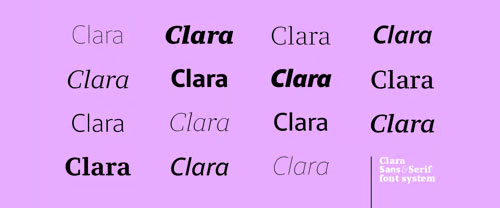
- Clara is a set of alphabets of interconnected serif and sans serif fonts. The connection is not only in the intensity of the strokes, i.e. in the identical brightness of the typesetting, but also in the drawing principles of both alphabets. The typeface aims to offer a sense of calmness for a reader even in smaller scales of the typesetting. In large scales it builds on the purity of the image without additional decorations. The Clara system includes maximum equipment of a Latin font from Thin to Black in all versions of marking fonts, italics, capital letters and four kinds of numbers. The typeface allows typesetting of the vast majority of cultural languages of the world.